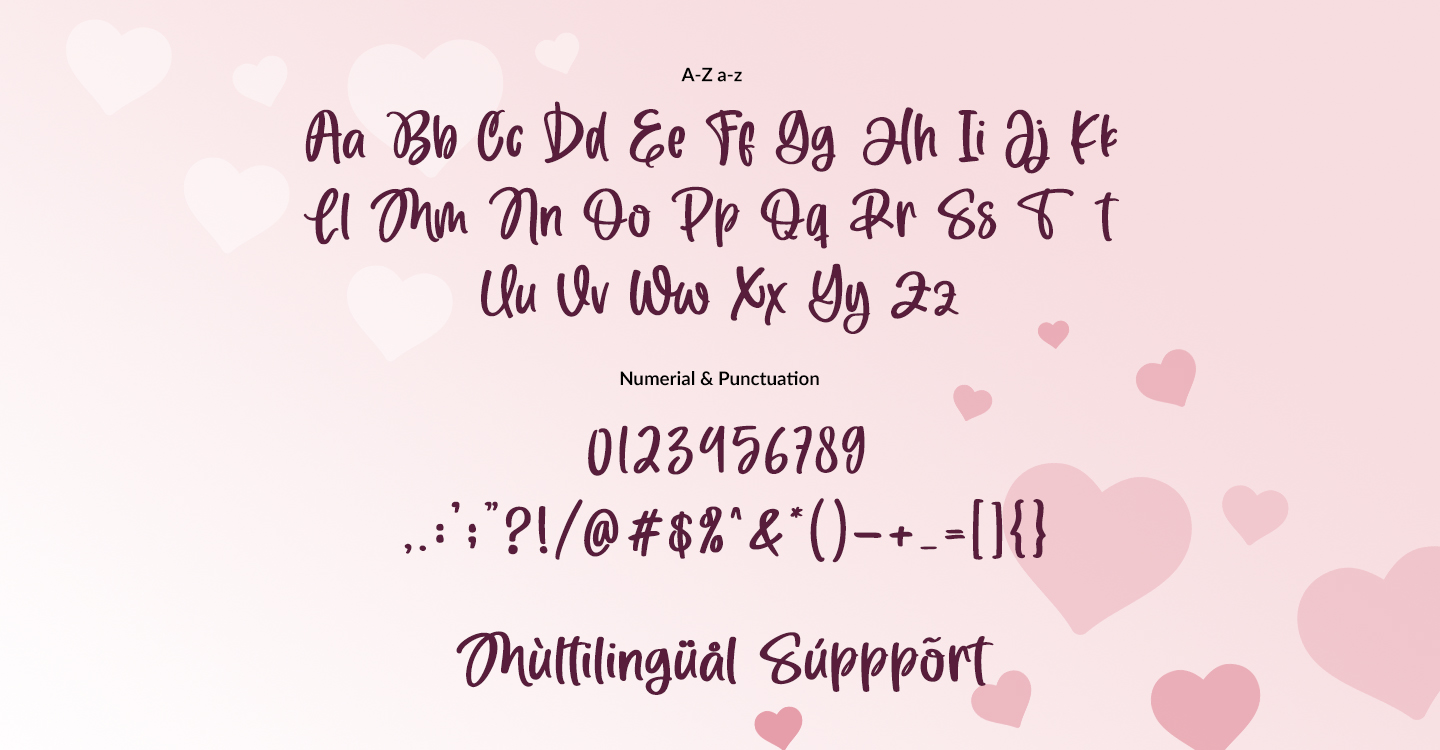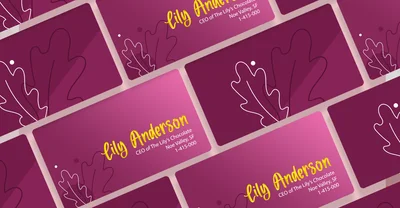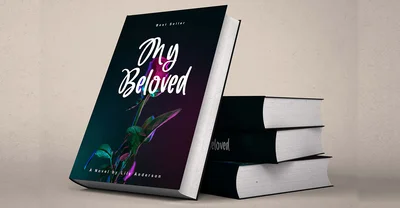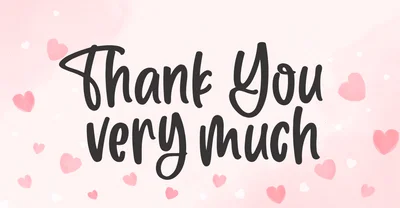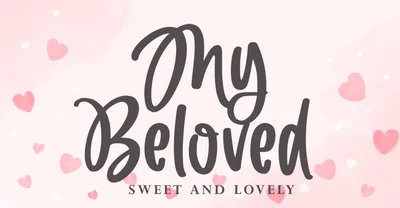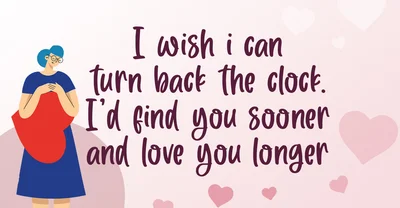
Beloved vs Didone
Beloved and Didone are both display typefaces sharing a fashion foundation. Where Beloved leans script, Didone brings high contrast, display. Compare which suits your Luxury project.
Design overlap:40%
| Feature | Beloved | Didone |
| Classification | display | display |
Typography for wedding invitations, event invitations, and formal announcements....
Typography for fashion brands, style publications, and luxury apparel. Fashion f...
Recommended: Beloved
- script design character
- Suited for Wedding and Romantic
Consider: Didone
- high contrast, display design character
- Suited for Fashion and Editorial